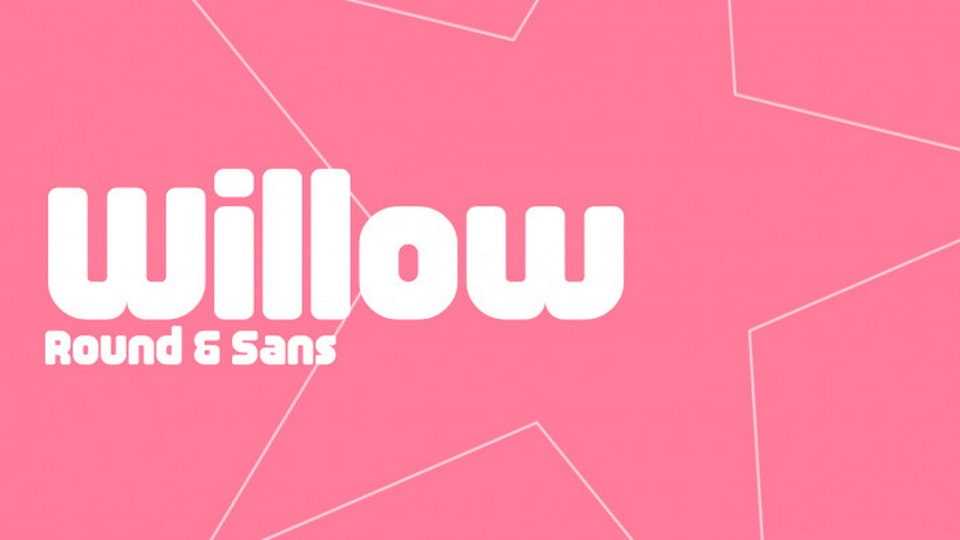
Download Willow font, a sans serif typeface that effortlessly combines boldness with smooth, rounded edges for a harmonious and inviting typographic experience.
Designer: STC America